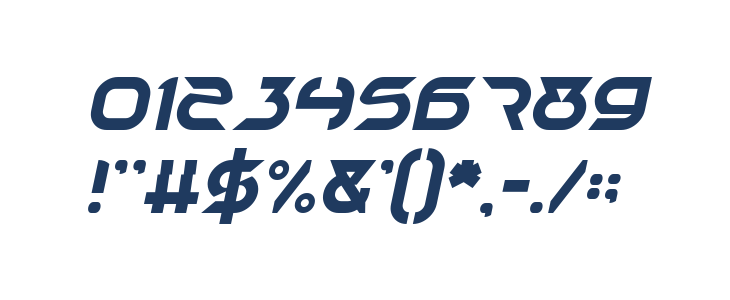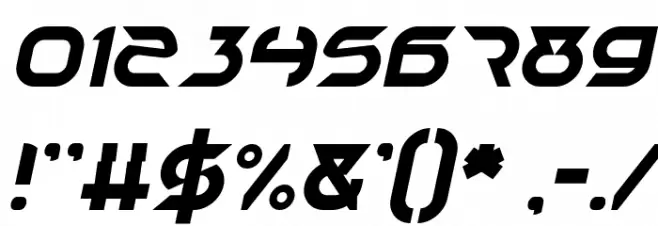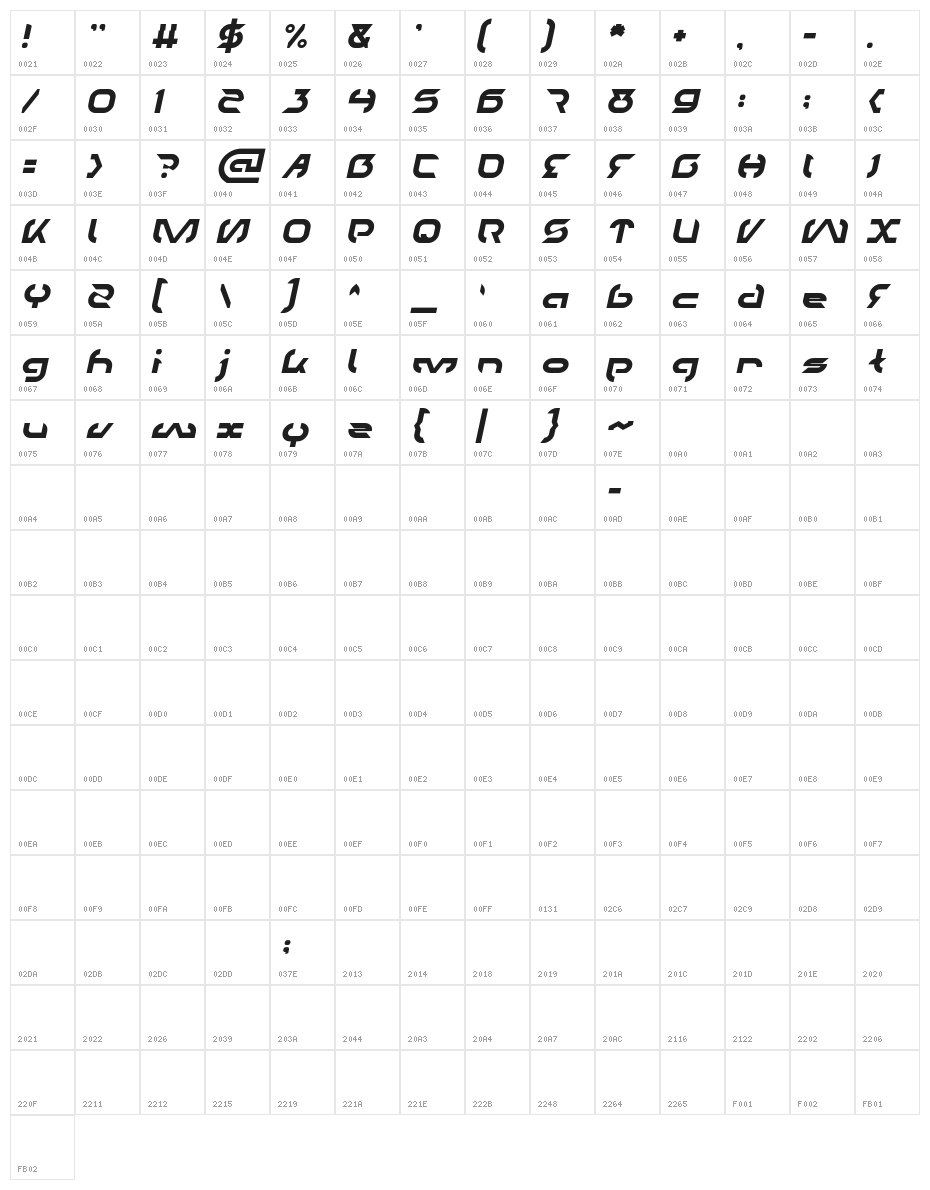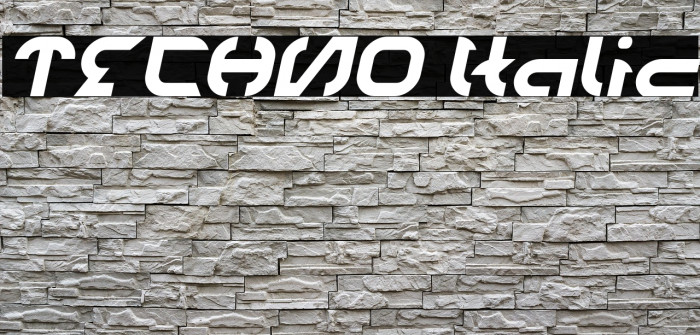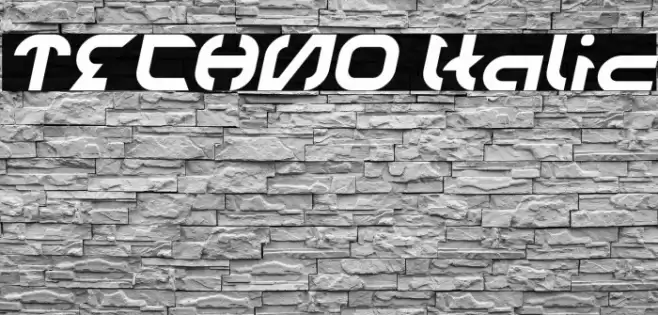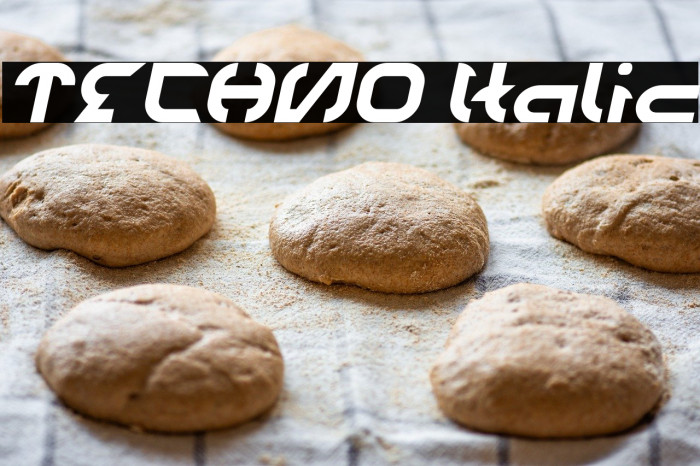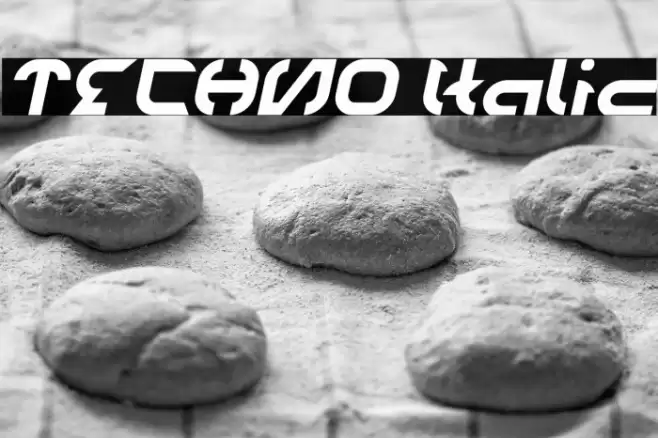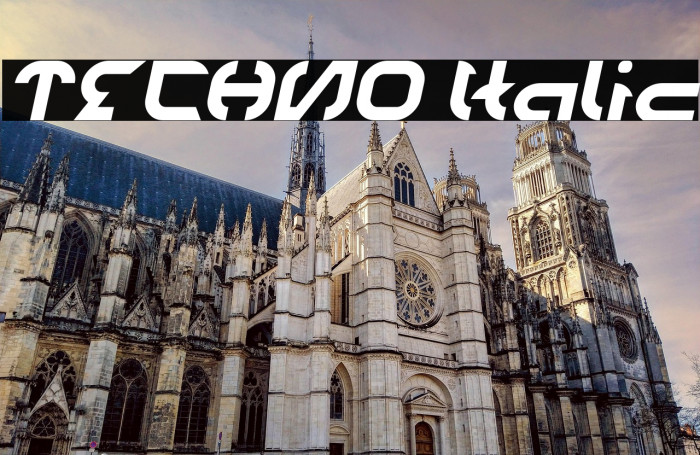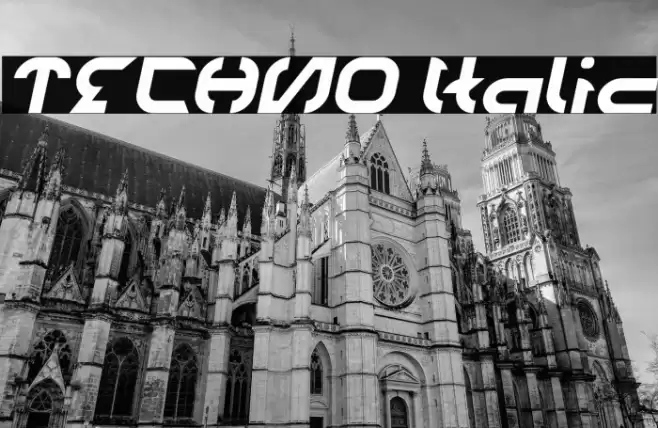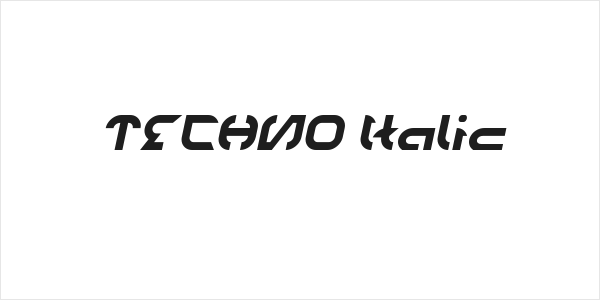
TECHNO Italic Font
TECHNO Italic Description
This font features a futuristic and angular design, characterized by sharp edges and a dynamic slant that gives it a sense of motion and speed. The uppercase and lowercase letters maintain a consistent style, with each character exhibiting a unique geometric form. The numerals and special characters are designed to match the overall aesthetic, making them ideal for tech-oriented projects. The font's bold appearance and italicized slant enhance its modern and cutting-edge feel, suitable for digital and sci-fi themes.
| Proposed Projects | Ideal for technology branding, sci-fi movie posters, video game titles, and digital interfaces. |